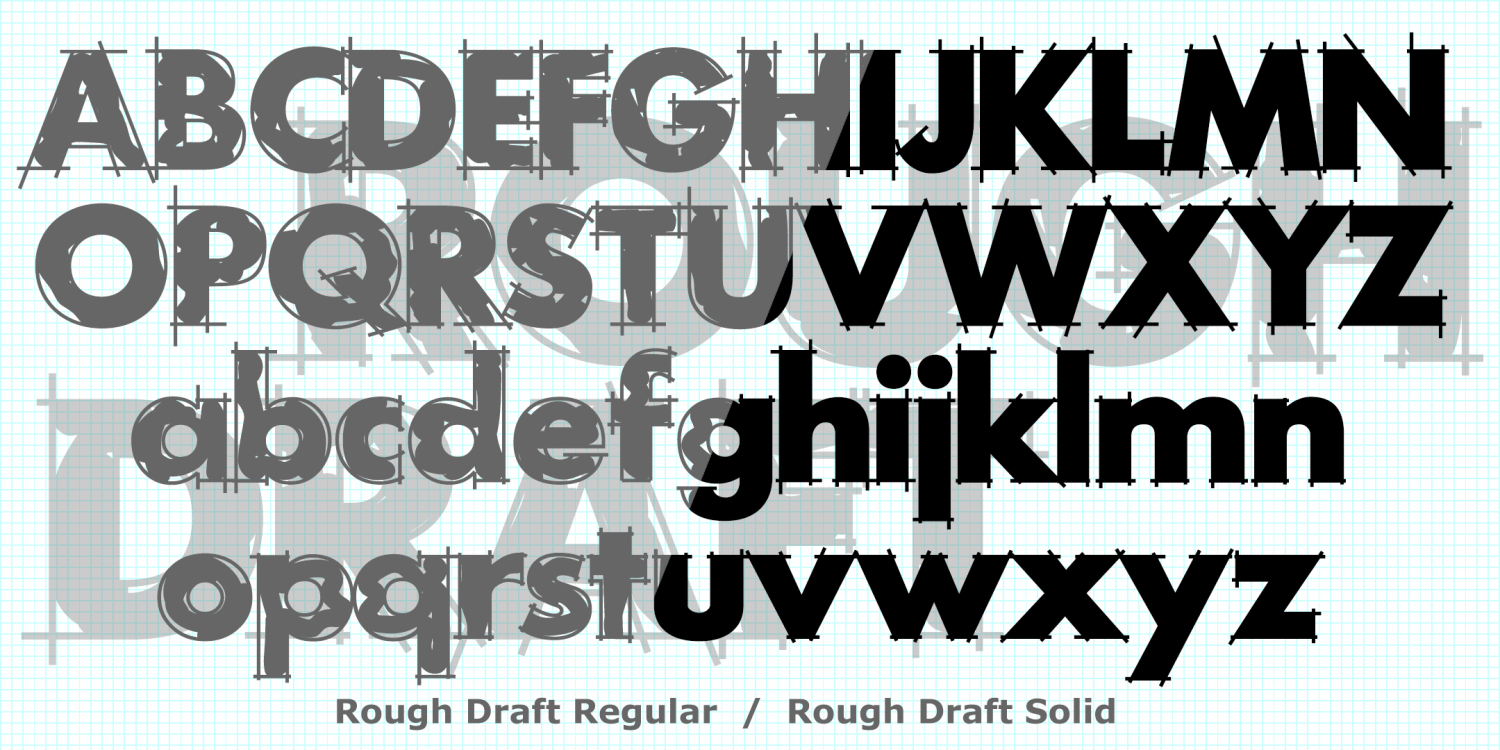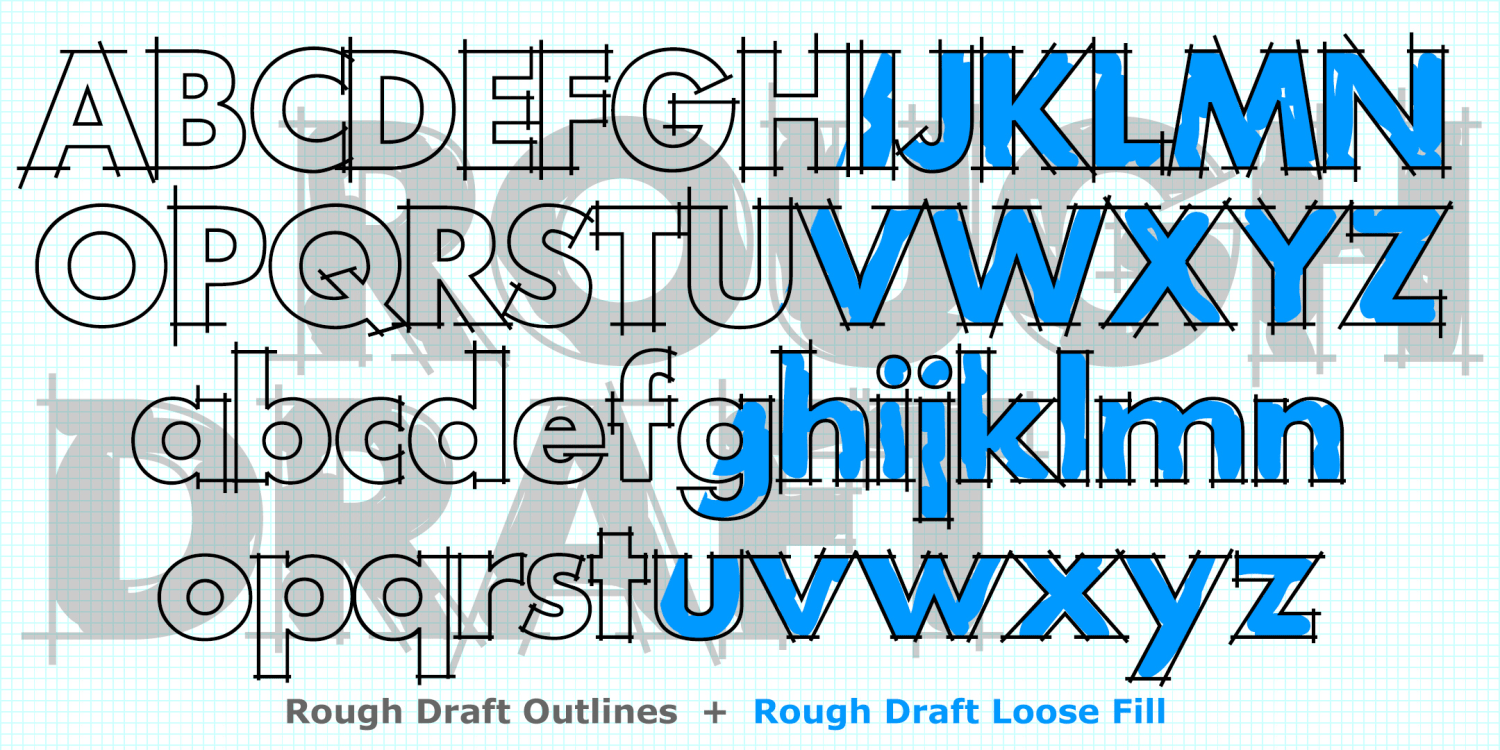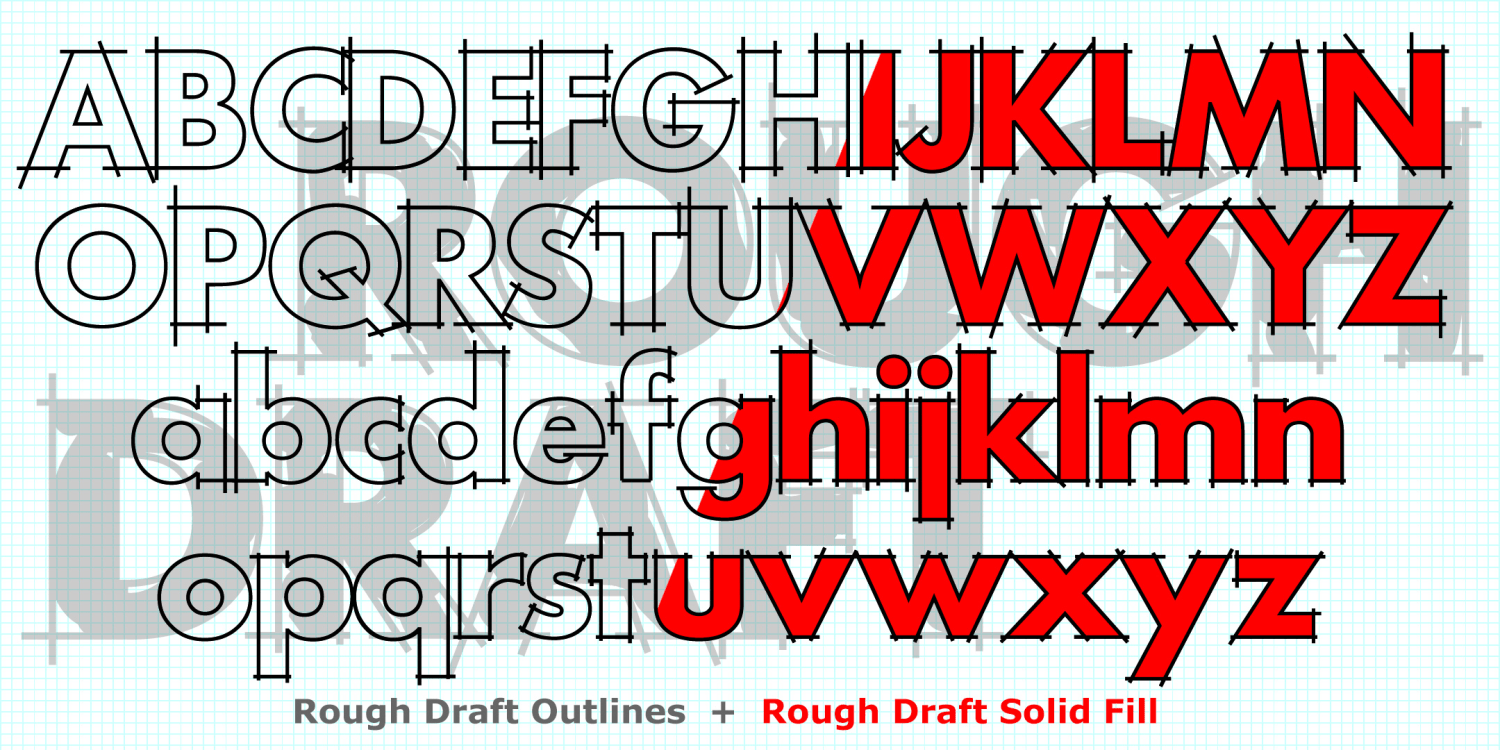
Rough Draft
Rough Draft is designed to look like unfinished lettering--it appears that the outlines need to be cleaned up and it's not filled in completely. Despite its roughness, it has some of the elegance of a technical drawing. Suggested in part by "Layout Gothic" in Dan X. Solo's 100 Grunge Alphabets from Dover, and by Greg Smith.